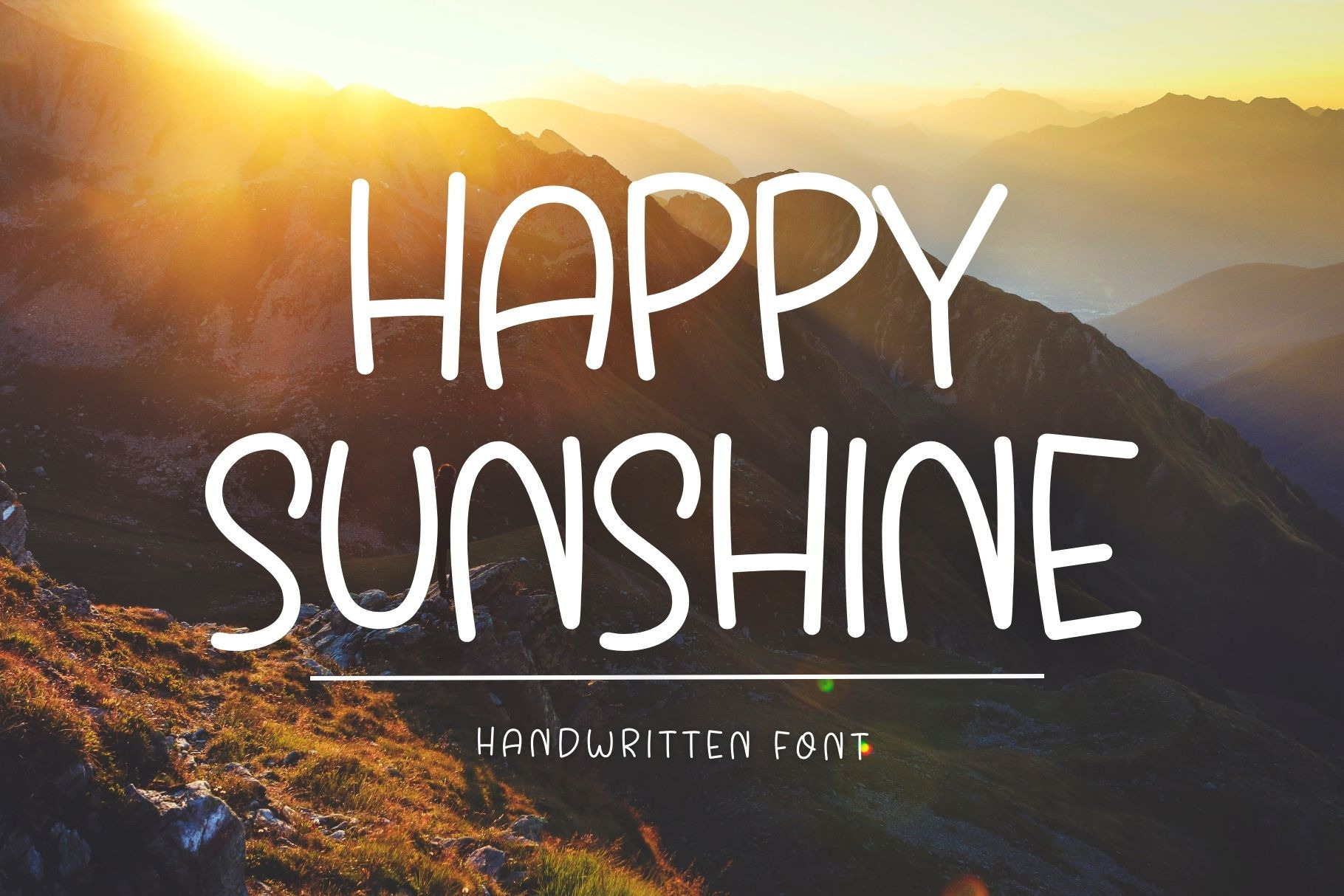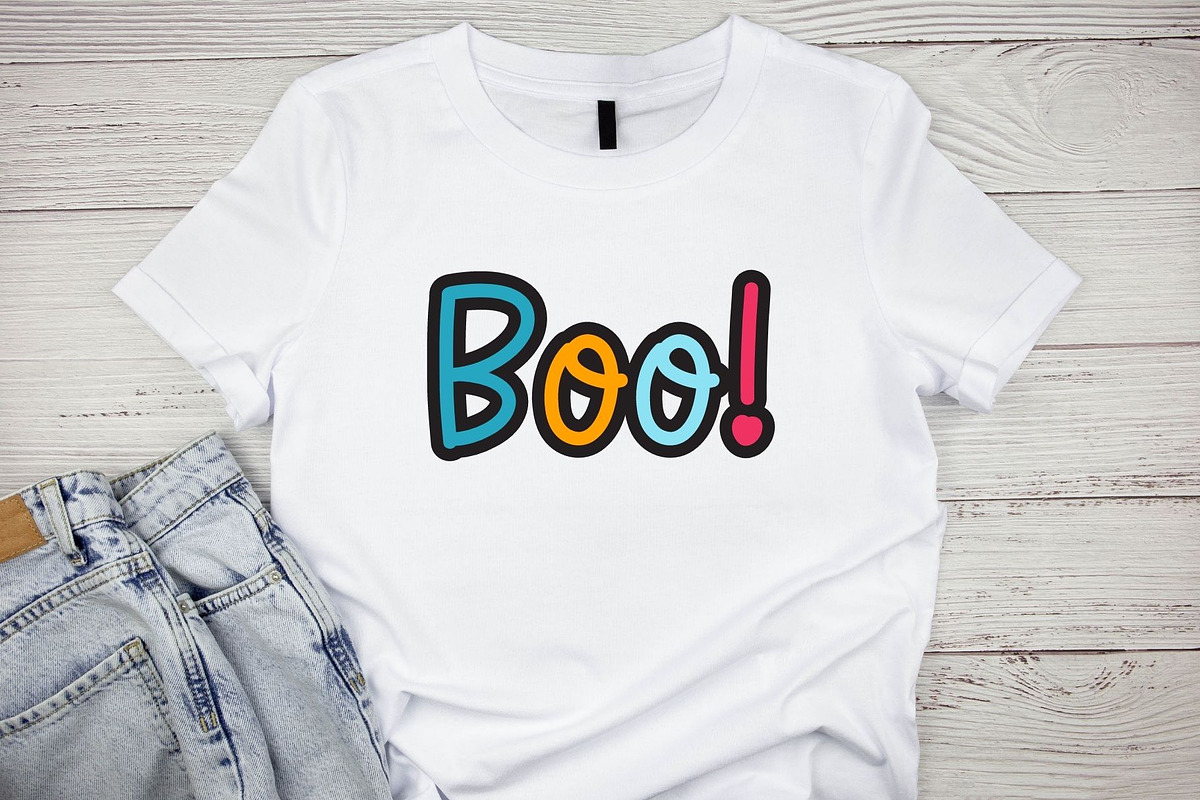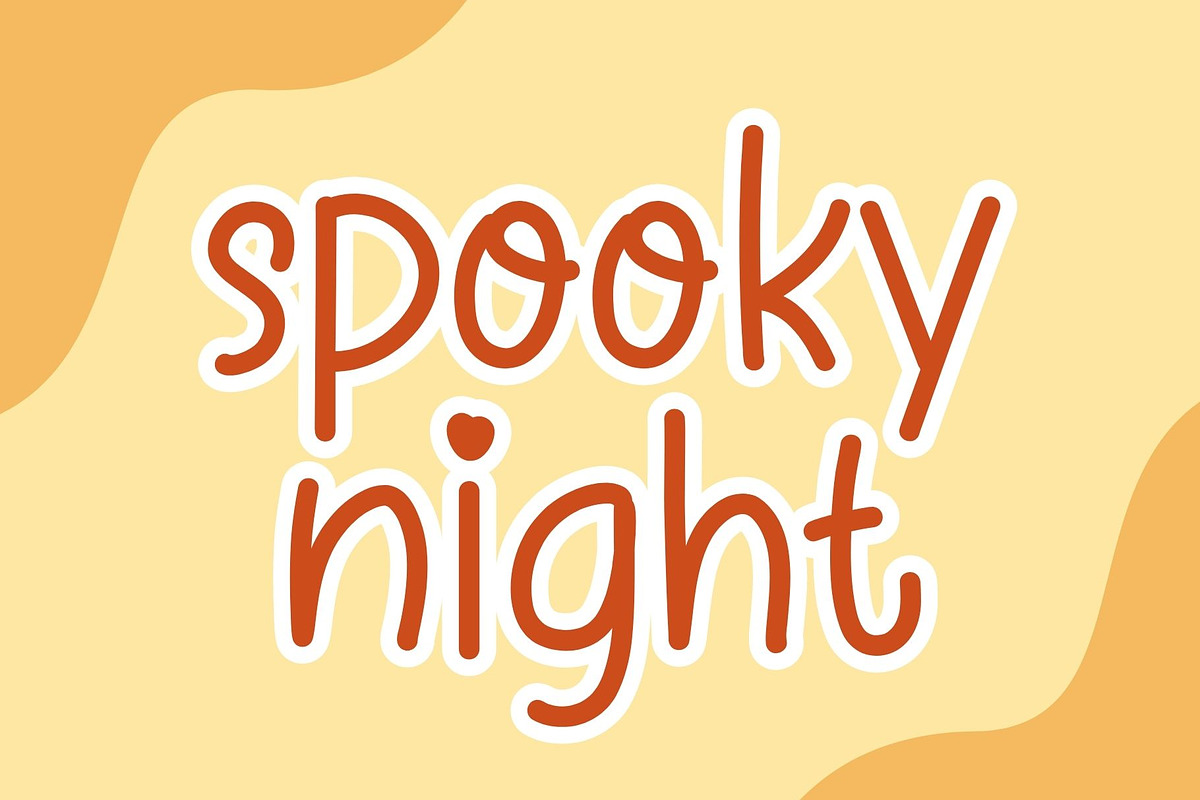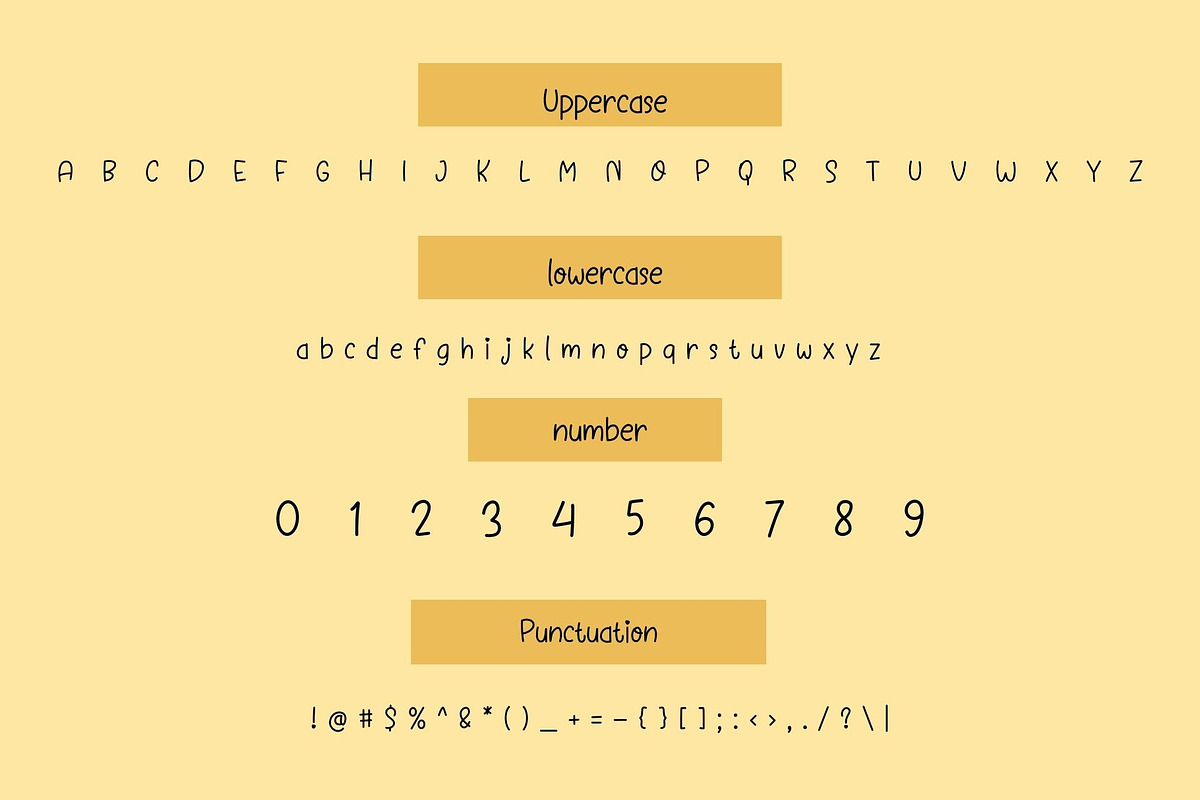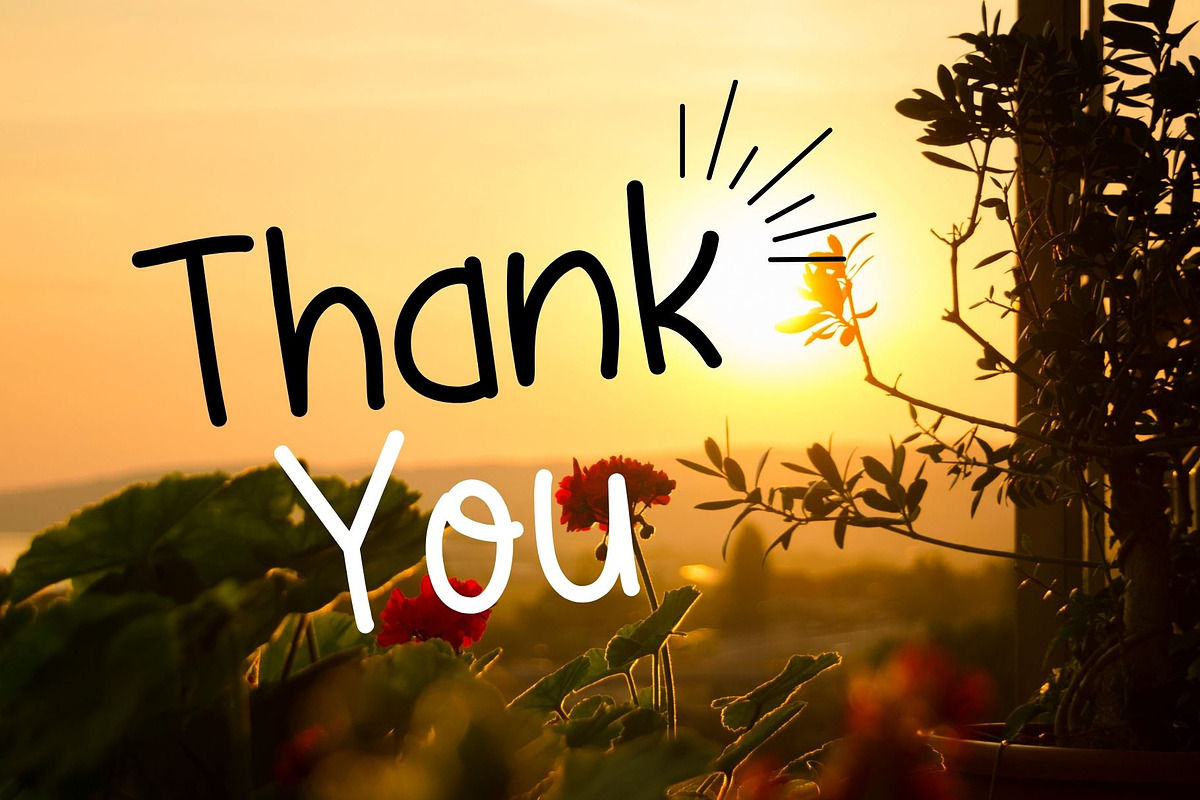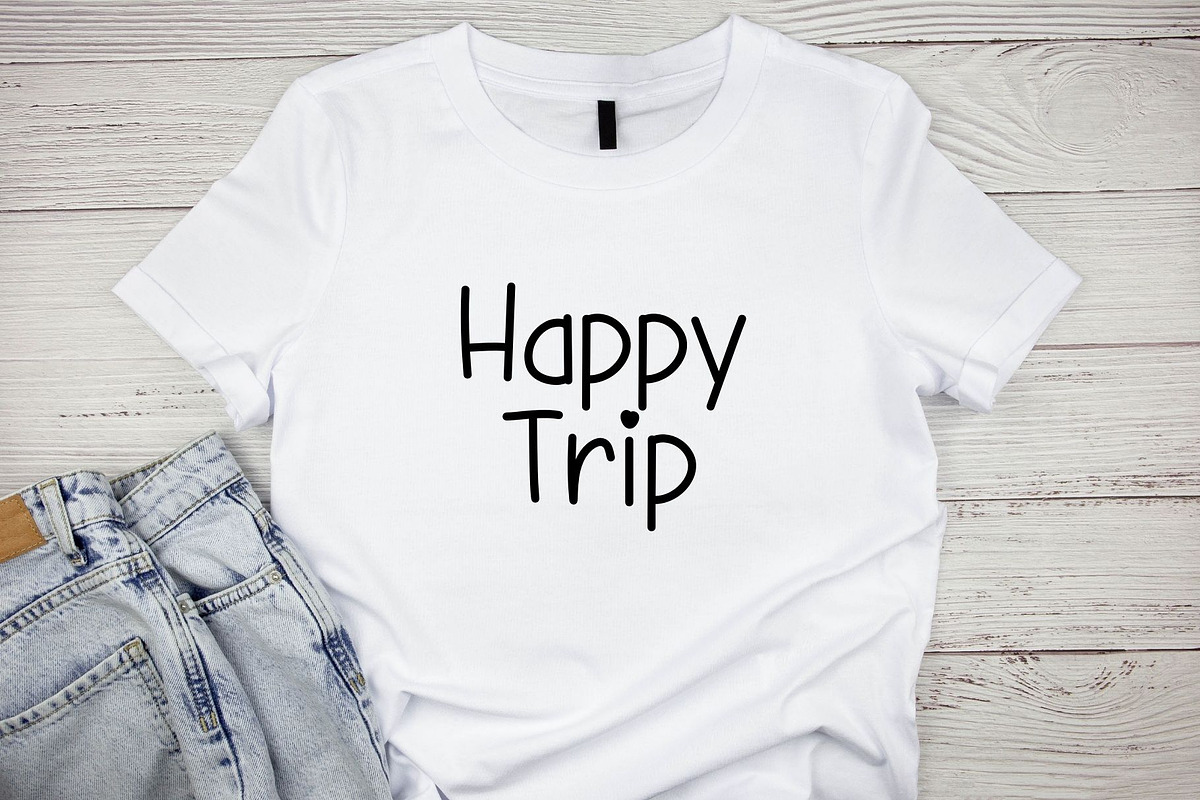
Happy Sunshine is a handwritten font
Happy Sunshine is a cute handwritten font. It embodies playfulness and authenticity and is the perfect choice for all your favorite projects, including blog posts, logos, branding, ads, invitations, greeting cards, planners, photo albums, decorations, and more. Add it to any of your designs, and enjoy the results!